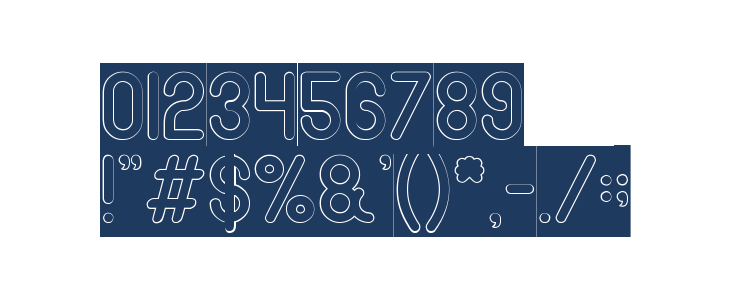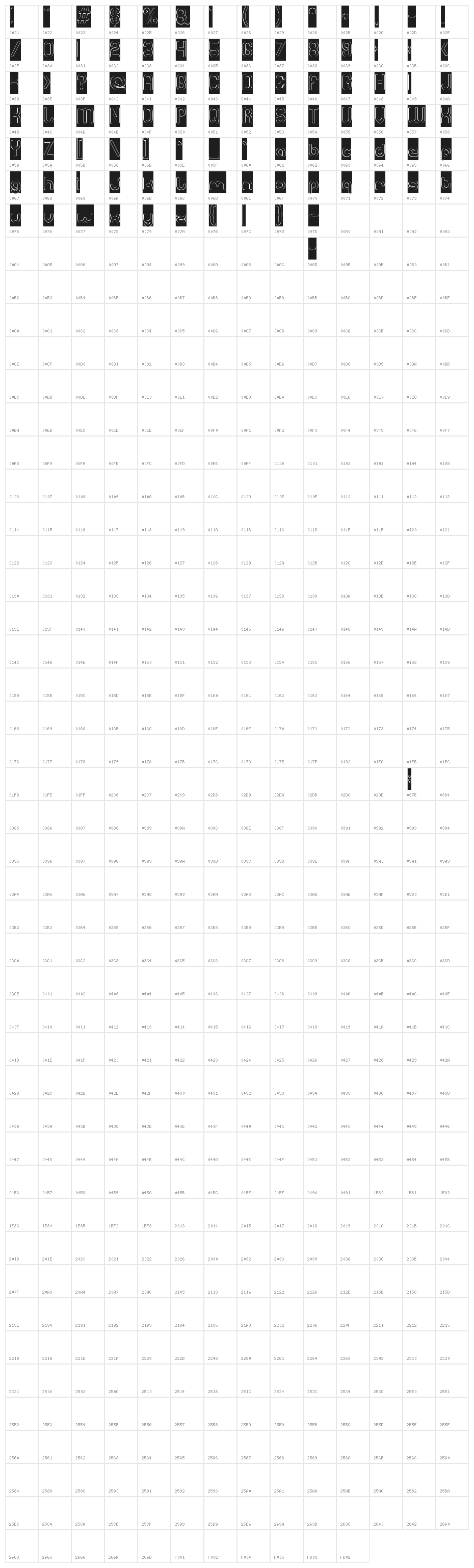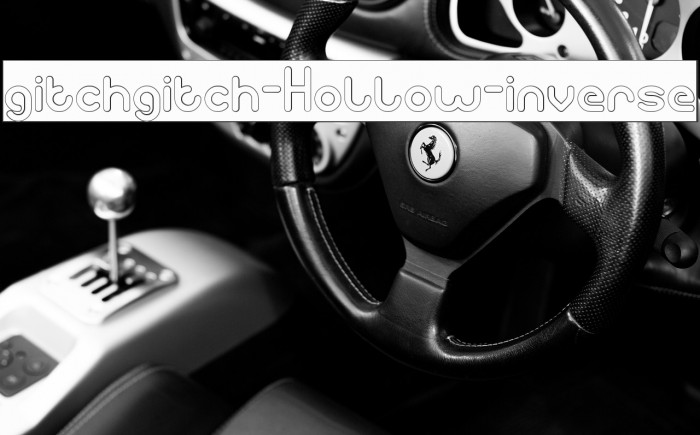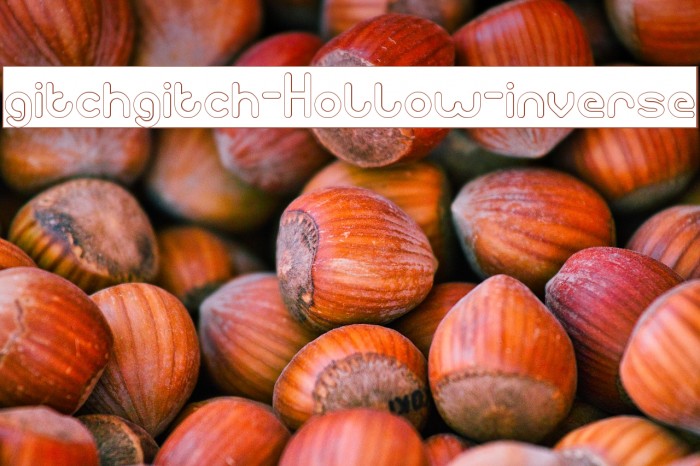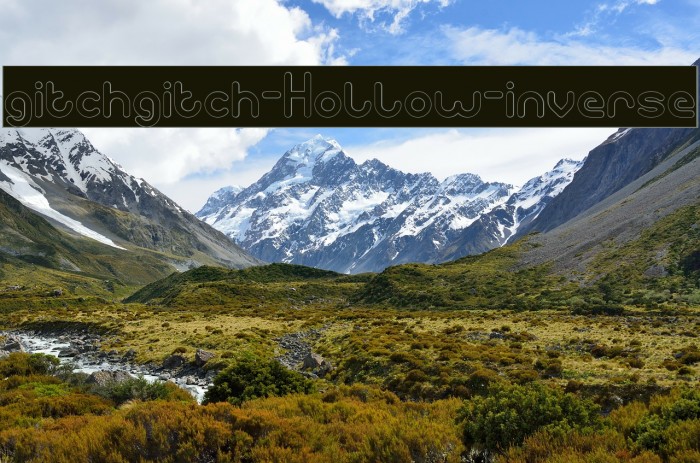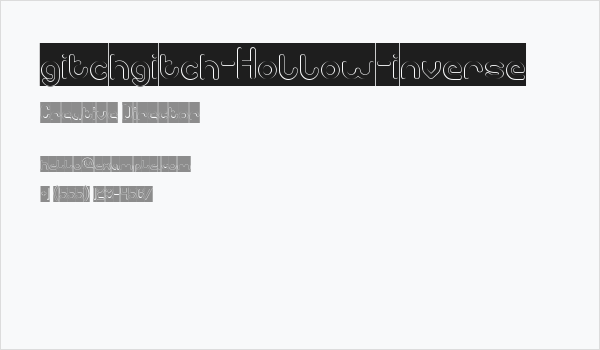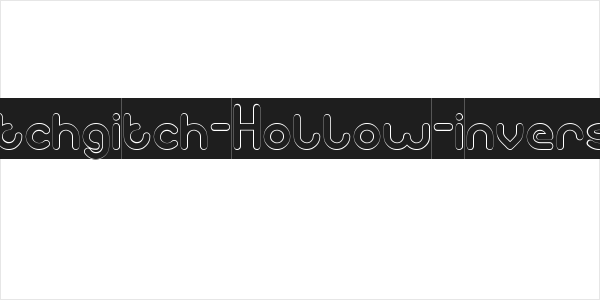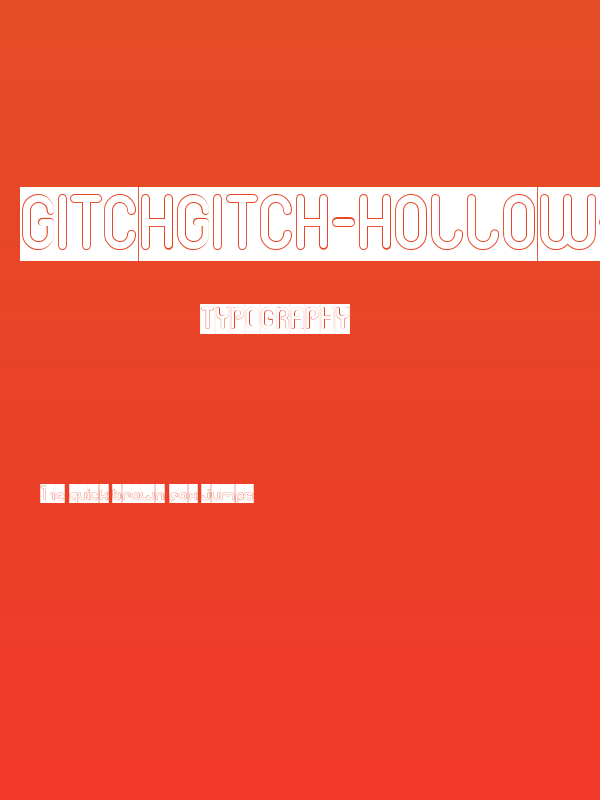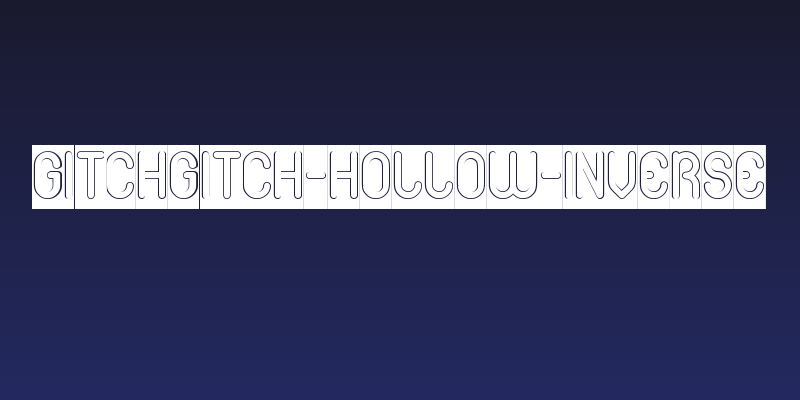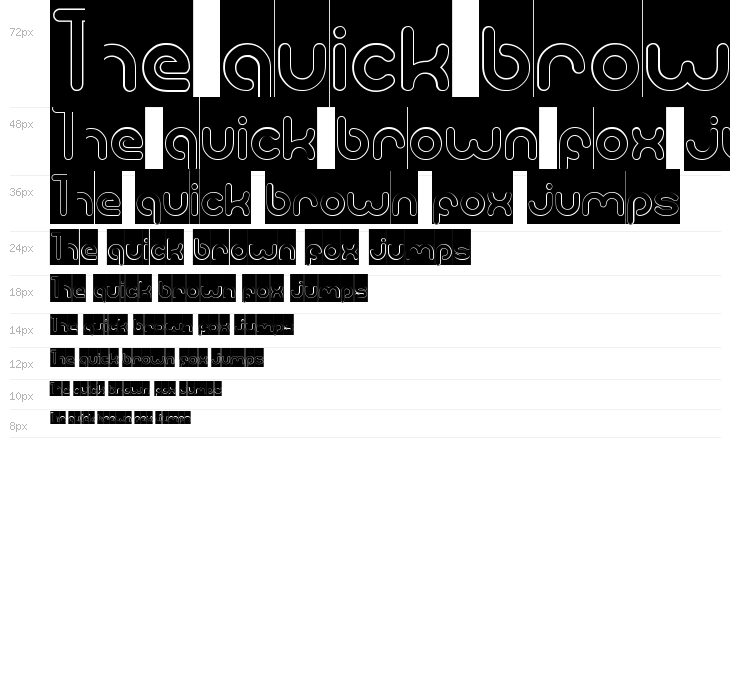
gitchgitch-Hollow-inverse Font
gitchgitch-Hollow-inverse Description
This font features a hollow, outlined design with smooth, rounded edges, creating a modern and playful aesthetic. The uppercase and lowercase letters maintain a consistent style, with uniform stroke widths that give the font a cohesive look. The numerals and special characters follow the same design principles, ensuring a harmonious appearance across all glyphs. The font's open structure and clean lines make it highly legible, even at smaller sizes. Its unique hollow effect adds a touch of creativity, making it suitable for eye-catching designs.
Proposed ProjectsIdeal for branding, posters, headlines, and creative design projects requiring a modern and playful touch.